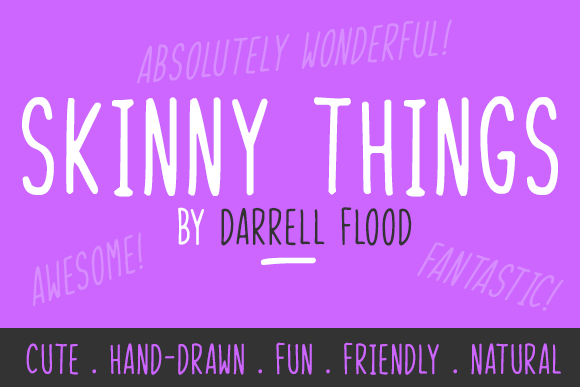
Skinny Things Font
A skinny hand-drawn font in a casual felt-tip style, Skinny Things is a modern and carefree typeface that is perfect for a vast number of projects and designs. Created for making the most use out of horizontal space, Skinny Things is both cute and refreshing.